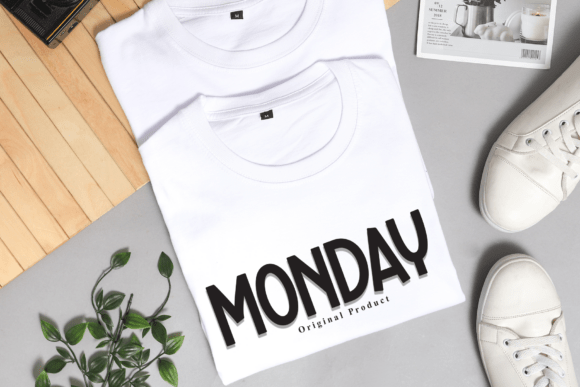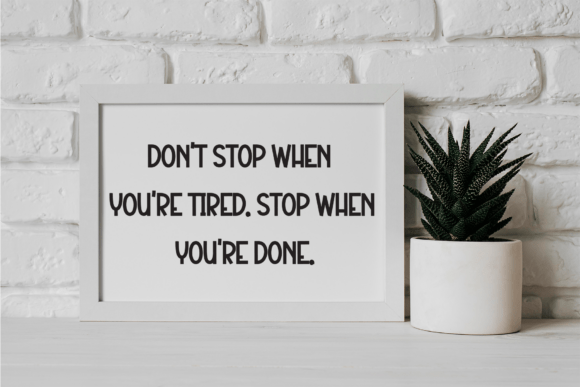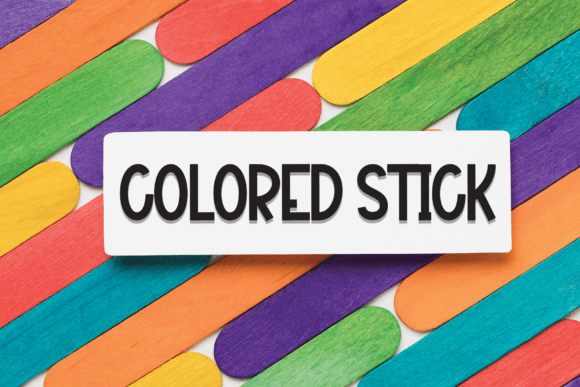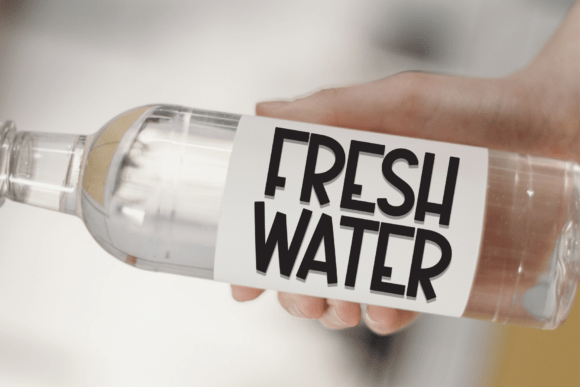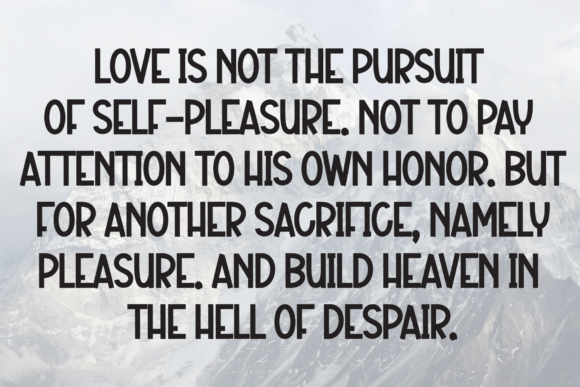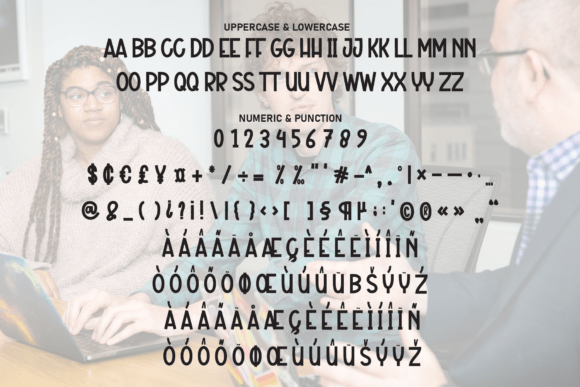
Unleash Your Creativity with Chubby Designer Font
You know that moment when you’re staring at a blank canvas, feeling stuck, and your imagination is screaming for something – anything – to break the silence? That’s when the magic happens, and you start doodling, scribbling, and experimenting with different styles until something beautiful emerges. That’s exactly what the Chubby Designer Font is all about – capturing the essence of those carefree, creative moments and infusing them into your work.
This delightful handwritten showcase font is specifically designed to add a playful twist to your designs, making it perfect for wedding invites, greeting cards, or any project that needs a dash of whimsy. With its charming and cheerful appeal, the Chubby Designer Font is a valuable addition to any designer’s toolkit, guaranteed to bring joy and fun into your work.
Chubby Designer Font Key Features
- Unique Characteristics: Friendly, approachable, and playful design with rounded edges and subtle curves
- Font Pairing: Designed to pair well with sans-serif fonts, ideal for creative and modern designs
Chubby Designer Font Review
Overall, I think the “Chubby Designer Font” has some great qualities, but it also has its limitations. Let’s start with the good stuff.
- ✨ The font is incredibly versatile, with a wide range of weights and styles that make it perfect for a variety of design projects. Whether you’re creating a logo, brochure, or website, this font has got you covered.
- ✨ The font’s rounded edges and soft curves give it a friendly, approachable feel that’s perfect for design projects that need to convey a sense of warmth and approachability.
- ✨ The font is also highly legible, even at small font sizes, making it perfect for use in digital design projects where space is limited.
However, there are a few limitations to consider.
- ⚠️ The font may not be the best choice for projects that require a more modern or sleek aesthetic. The rounded edges and soft curves can make the font feel a bit dated or old-fashioned in certain contexts.
- ⚠️ The font’s versatility can also be a bit of a double-edged sword. With so many different weights and styles to choose from, it can be overwhelming to decide which one to use, especially for designers who are new to the font.
Overall, I think the “Chubby Designer Font” is a solid choice for designers who need a versatile, legible font that can be used in a variety of projects. However, it may not be the best choice for every project, and designers should carefully consider the font’s limitations before using it.
Chubby Designer Font is perfect for:
- Quotes and testimonials
For the most effective use of the font, keep the following tips in mind:
- Use it sparingly to avoid overwhelming the design.
- Pair it with a clean and simple background to let the font shine.
Alternatives to Chubby Designer Font for Designers
Pacifico is a beautiful, elegant script font that is perfect for creating a sense of luxury and sophistication. It is ideal for use in branding, advertising, and editorial design.
Compared to Chubby Designer Font, Pacifico is more refined and delicate, making it a great choice for designers who want to create a more high-end look.
Great Vibes is a modern, cursive font that is great for creating a sense of fun and playfulness. It is ideal for use in social media, advertising, and entertainment design.
Compared to Chubby Designer Font, Great Vibes is more casual and relaxed, making it a great choice for designers who want to create a more laid-back look.
Carolyna Pro is a elegant, script font that is perfect for creating a sense of sophistication and glamour. It is ideal for use in branding, advertising, and editorial design.
Compared to Chubby Designer Font, Carolyna Pro is more refined and polished, making it a great choice for designers who want to create a more high-end look.